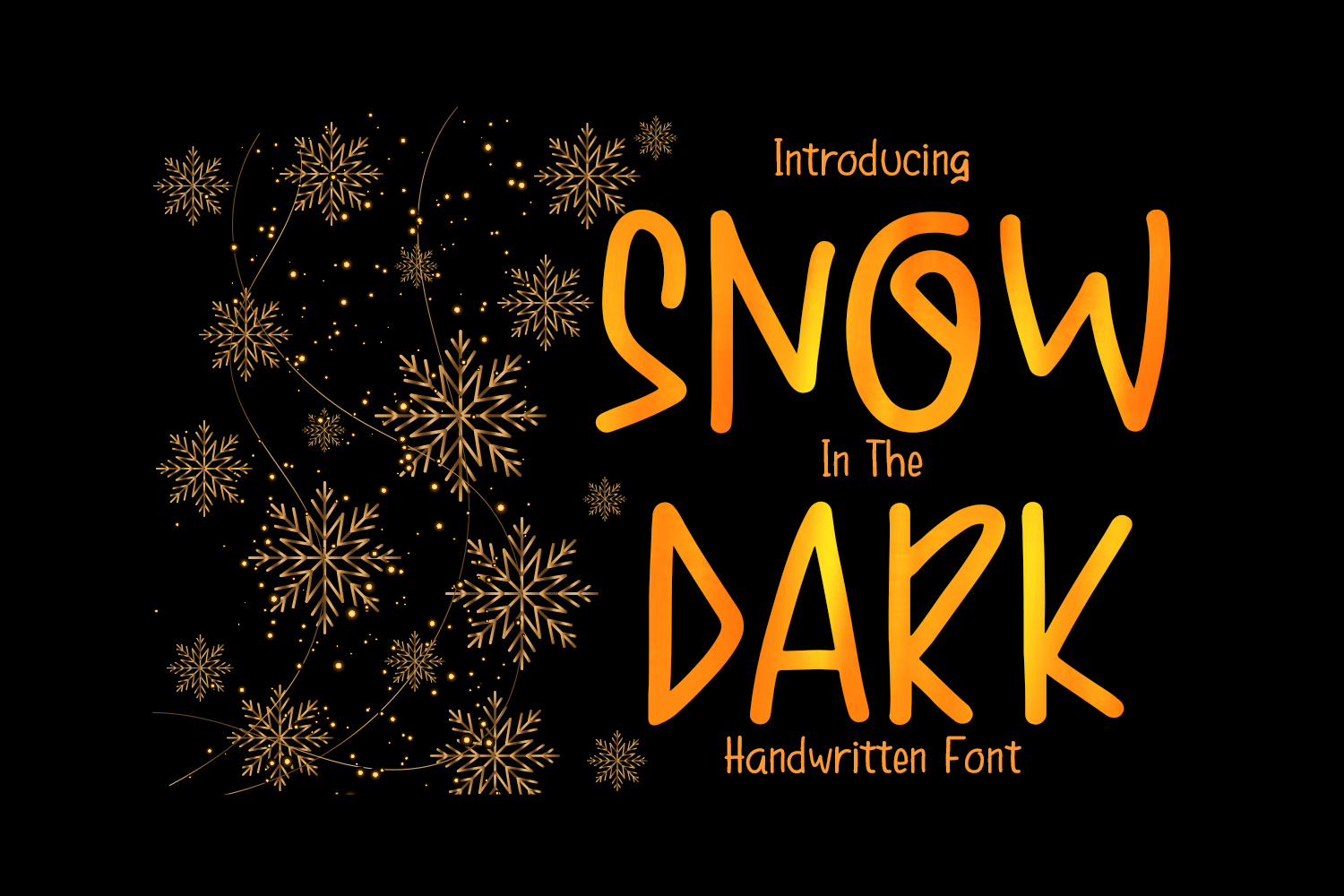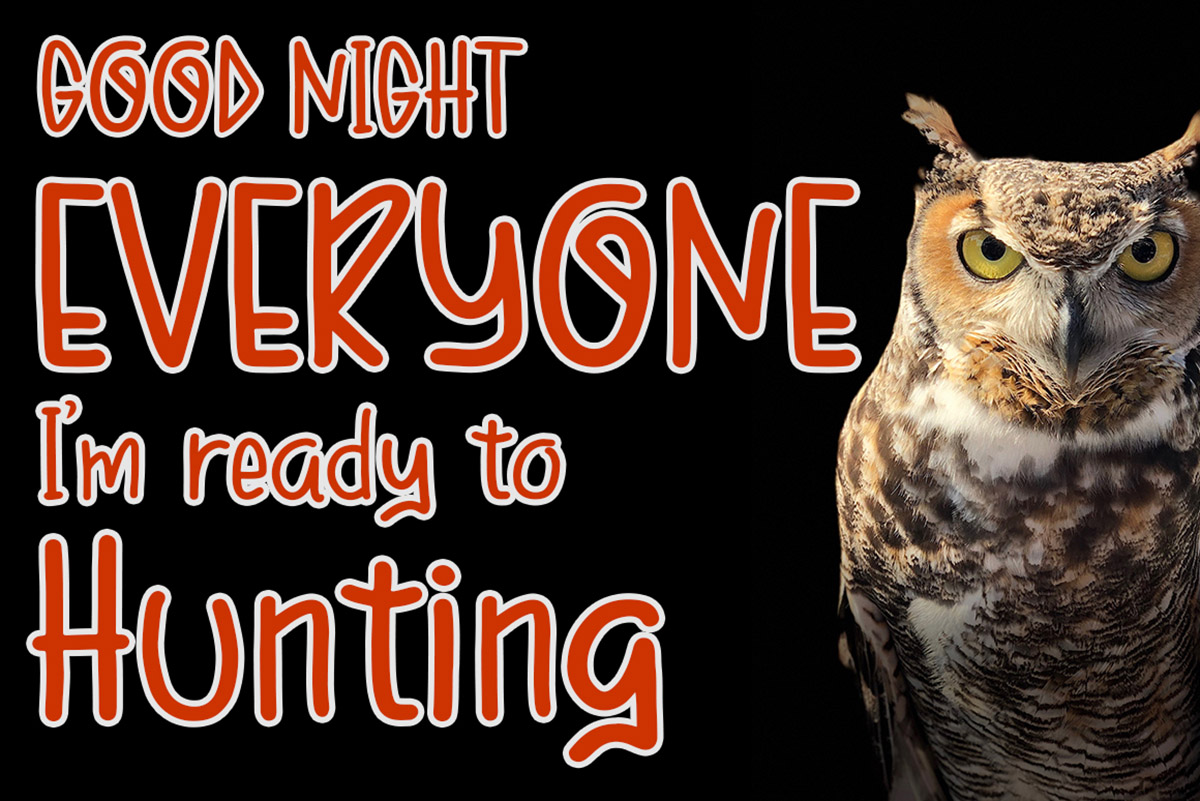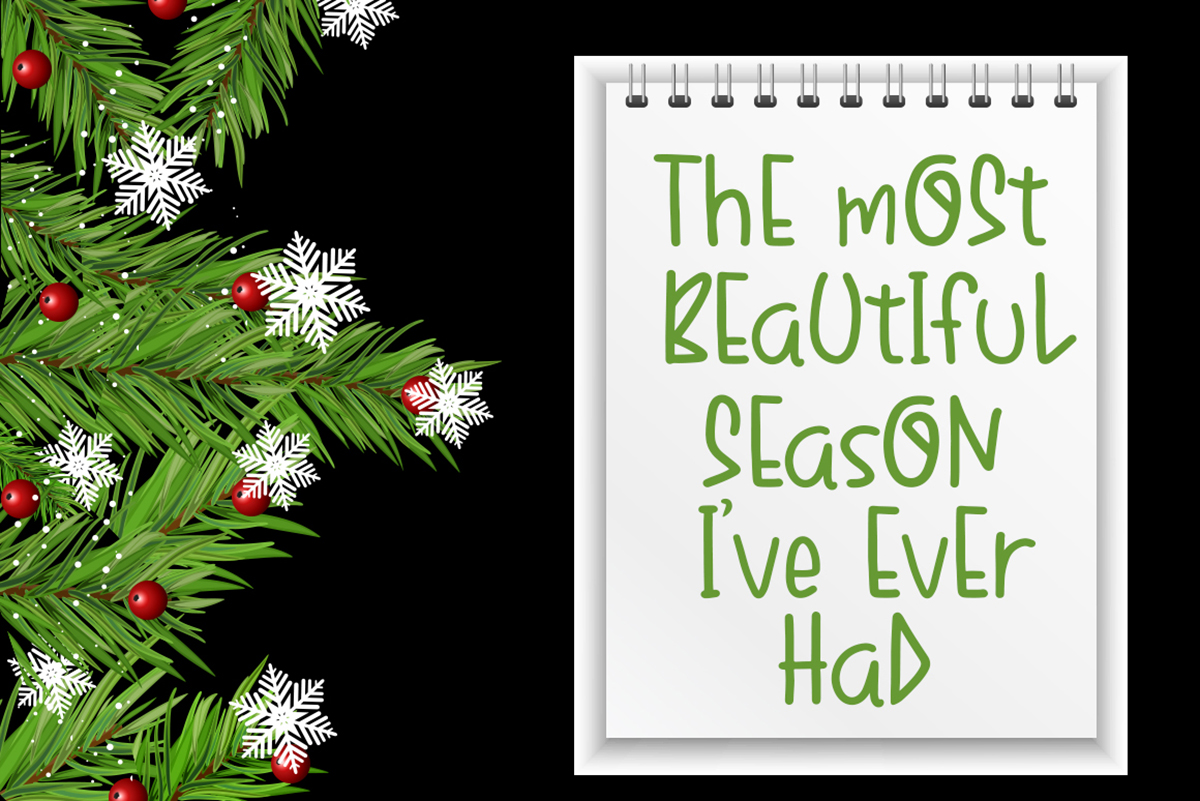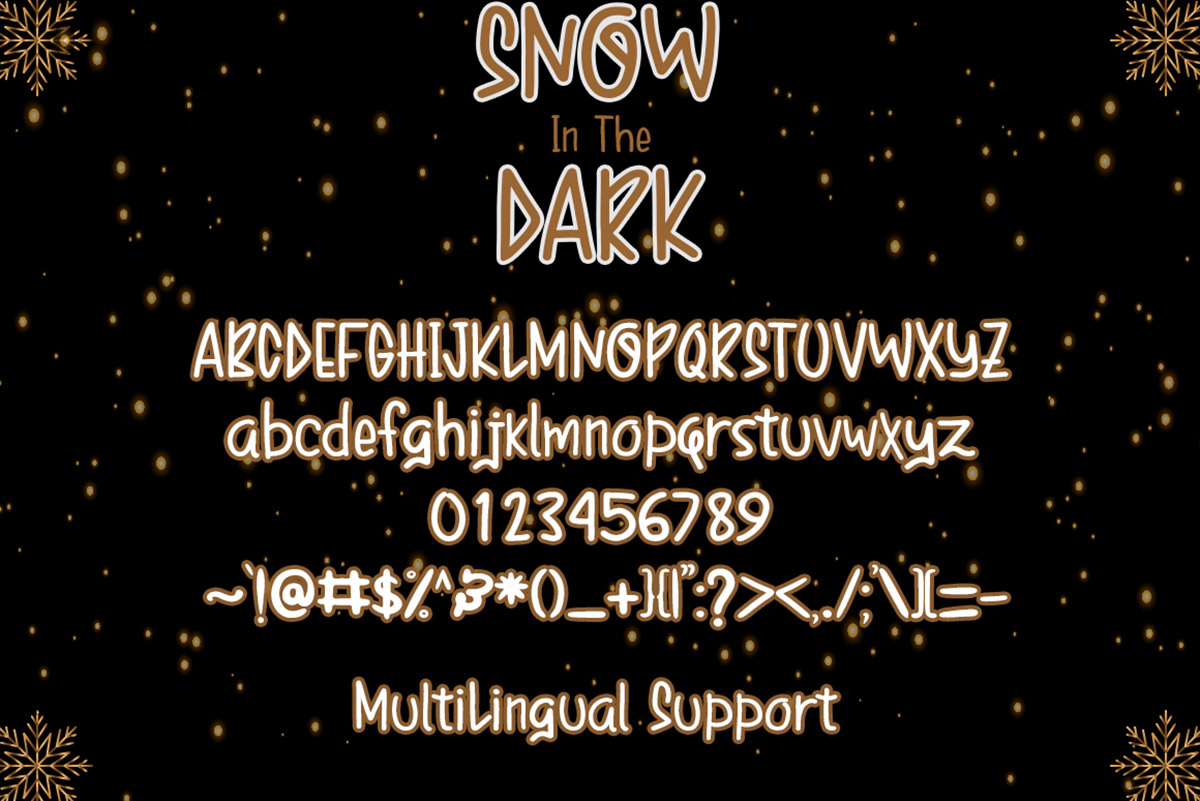
Snow In The Dark Free Font
Snow In The Dark Free Font is an incredibly unique and neat handwritten font. Its natural and unique style makes it incredibly fitting to a large pool of winter-related designs. This free typeface was designed by the talented Booga Letter Studio. If you like it don’t forget to check out the full version.